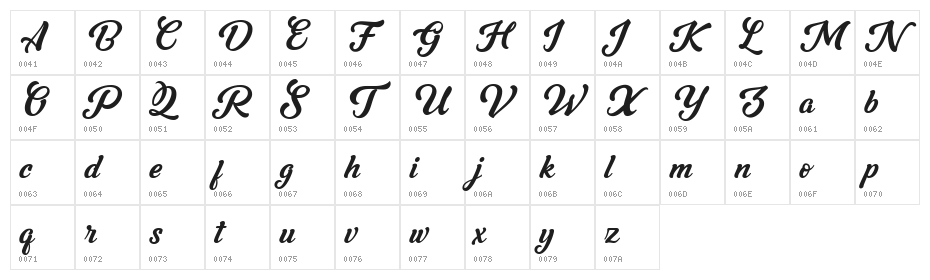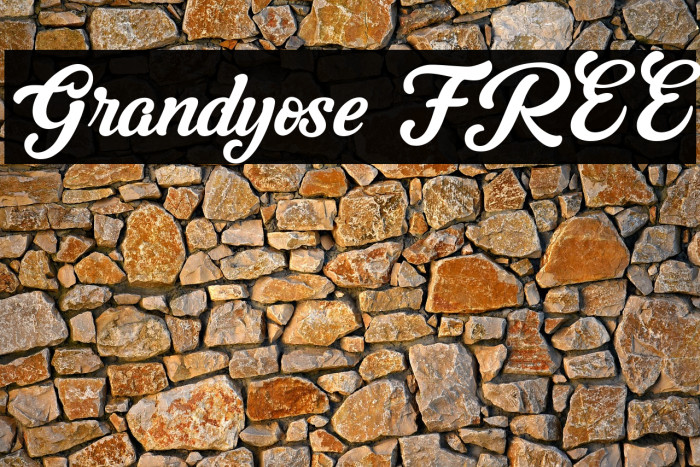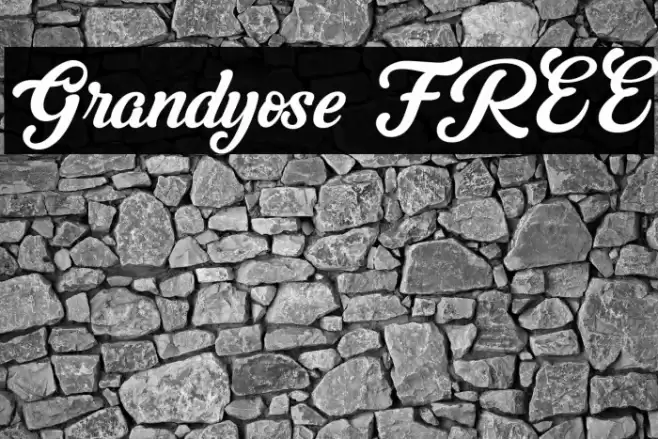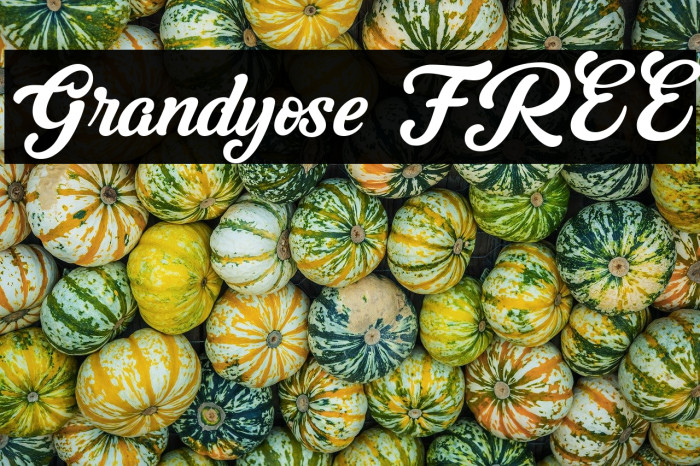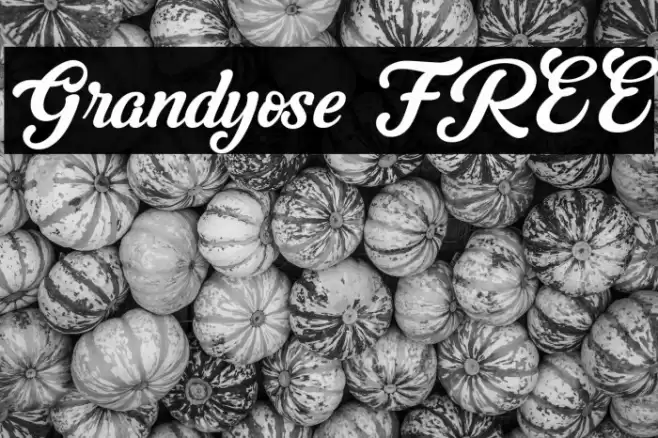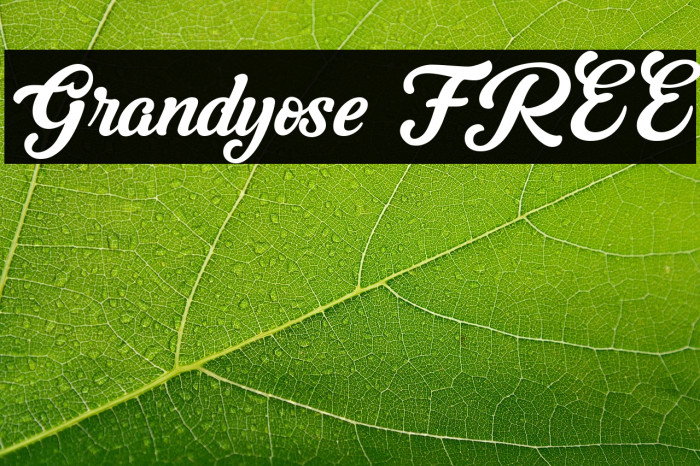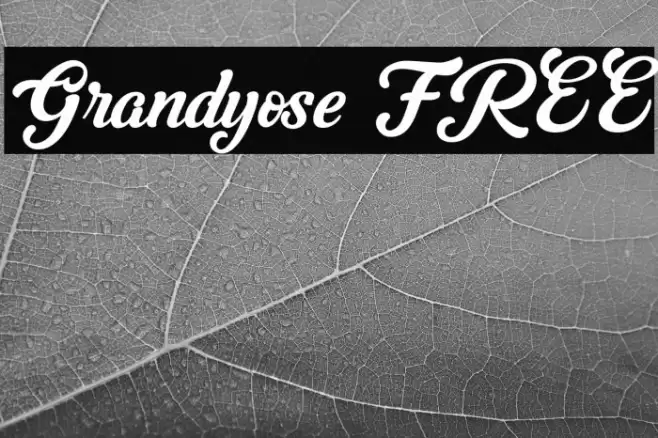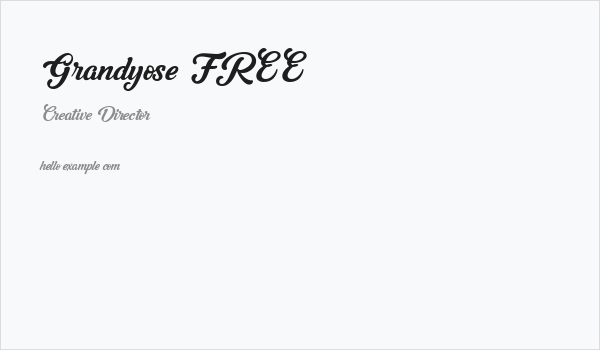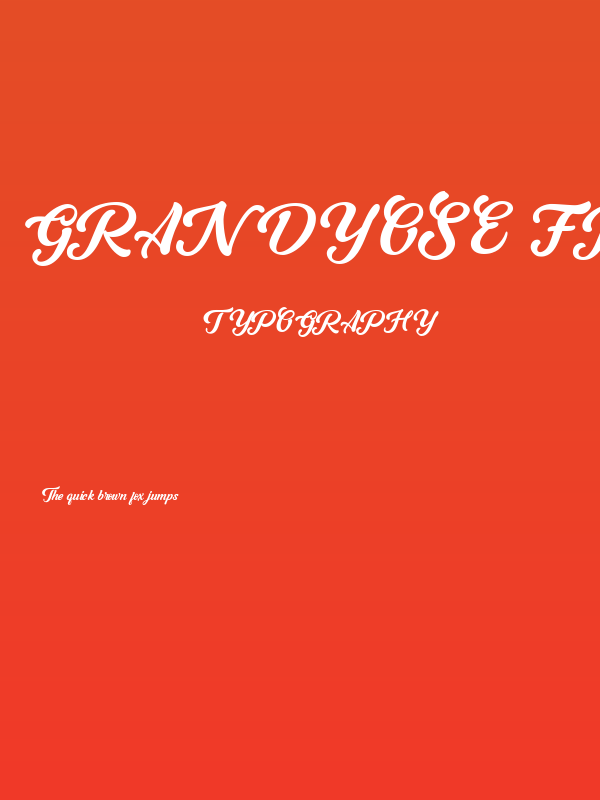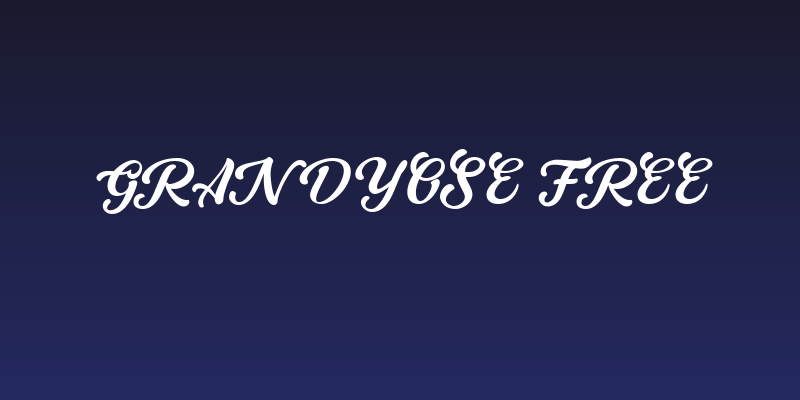
Grandyose FREE Font
Grandyose FREE Description
This font features a bold, cursive style with elegant, flowing lines that give it a sophisticated and artistic appearance. The uppercase letters are characterized by their intricate loops and swirls, while the lowercase letters maintain a consistent, smooth flow. The font's design is both decorative and legible, making it suitable for various creative applications. The numbers and special characters are designed to match the overall aesthetic, ensuring a cohesive look across all text elements. This font is ideal for projects that require a touch of elegance and flair.
| Proposed Projects | Ideal for wedding invitations, branding, logos, and decorative headlines. |